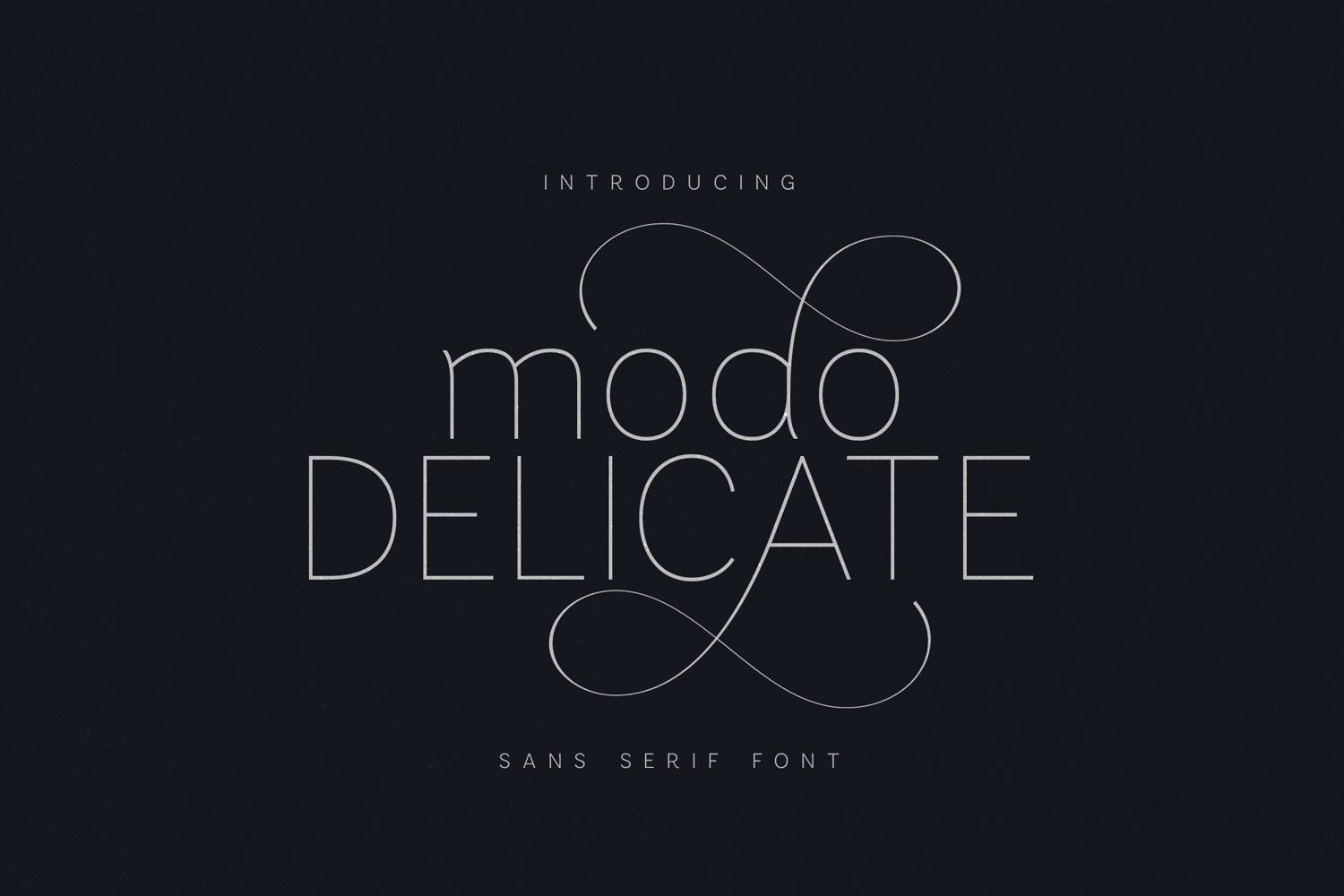
Modo Delicate Elegant Thin Sans Serif Font
Modo Delicate is a refined thin sans serif font designed with elegance, softness, and modern minimalism in mind. Featuring ultra-light strokes, clean geometry, and graceful curves, this typeface delivers a calm, airy presence that feels contemporary and sophisticated.
Ideal for luxury branding, editorial layouts, fashion projects, beauty designs, invitations, logos, websites, and refined typography systems, Modo Delicate excels where subtlety and clarity are essential. Its delicate construction makes it perfect for both display use and spacious, high-end compositions.
Modo Delicate is crafted for designers who appreciate precision, restraint, and timeless modern typography—where less truly becomes more.